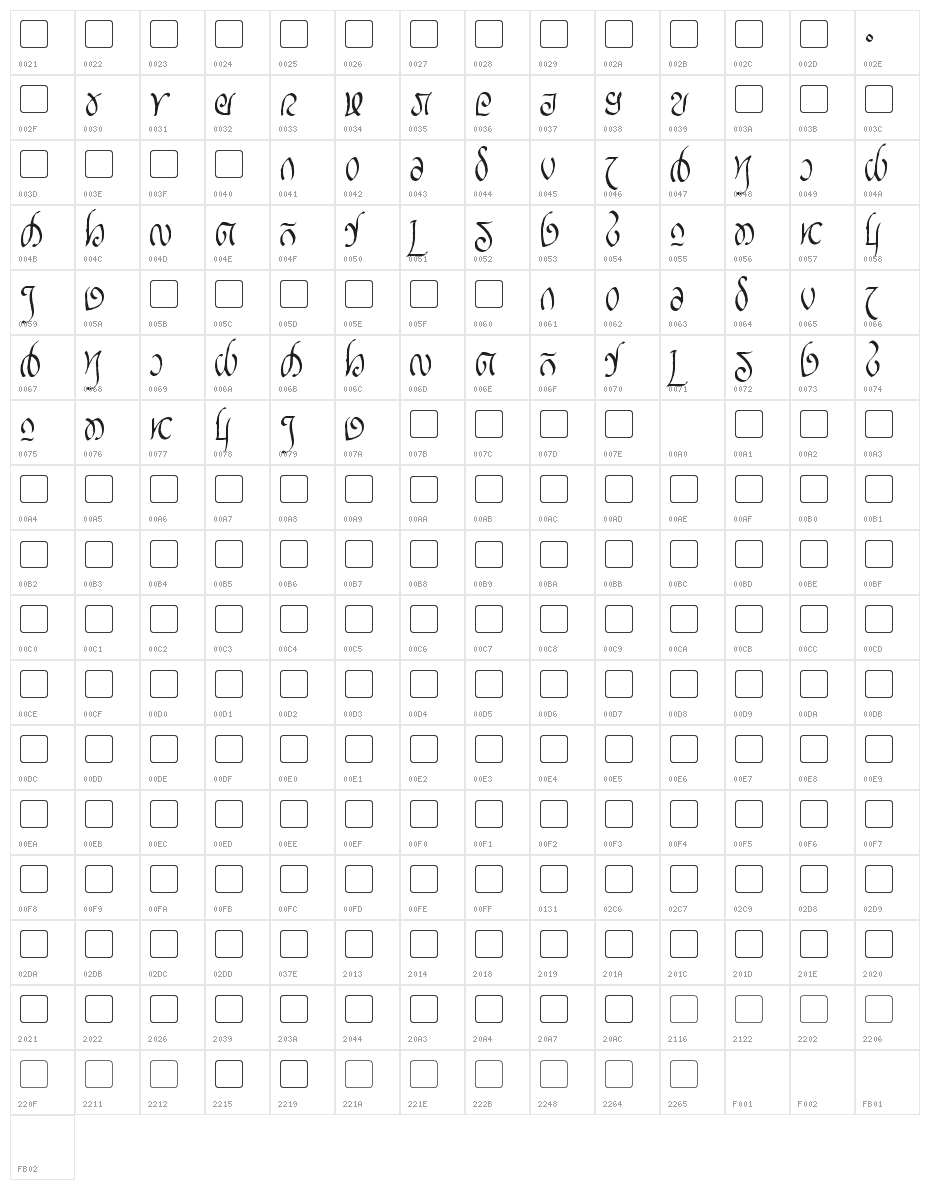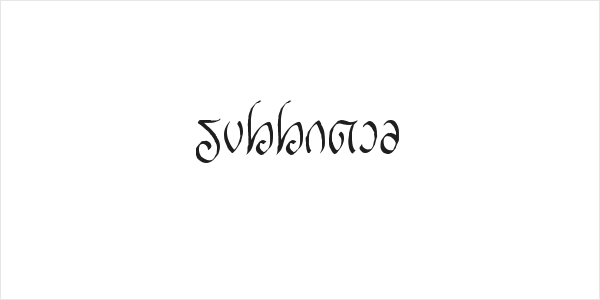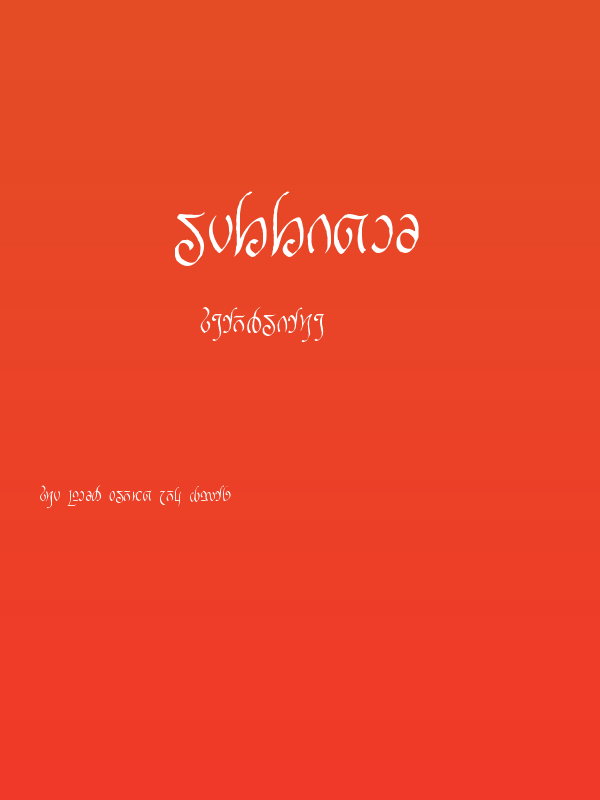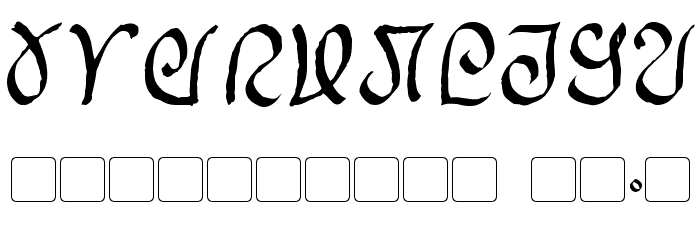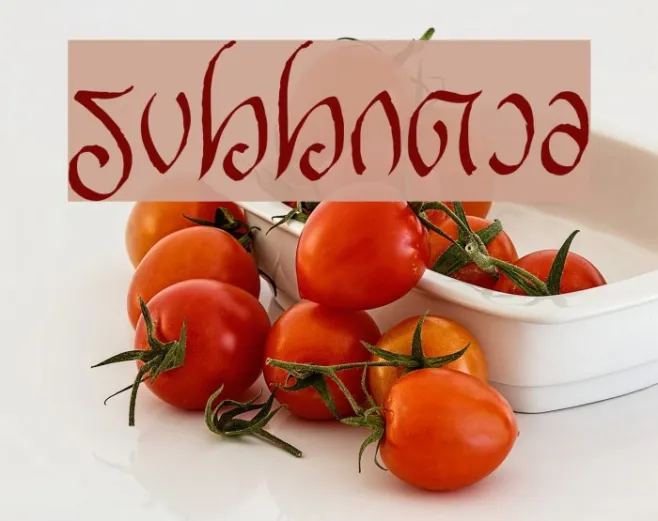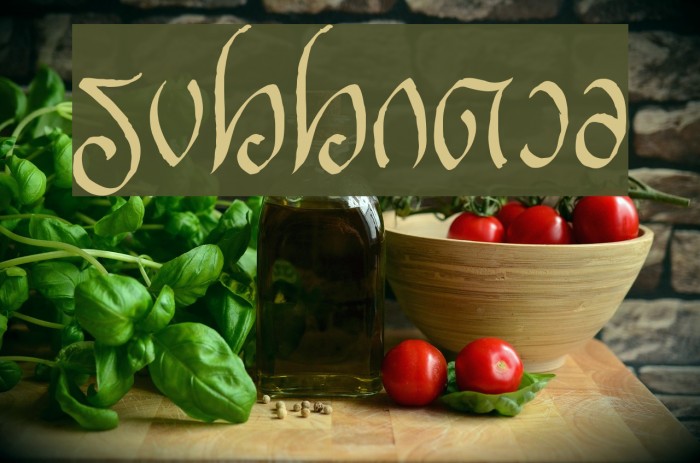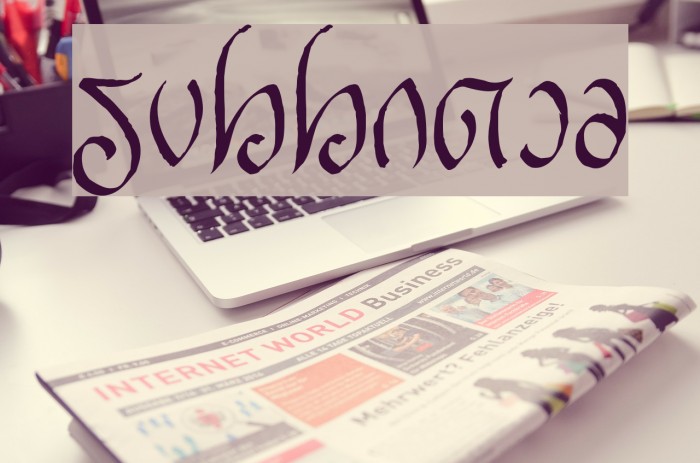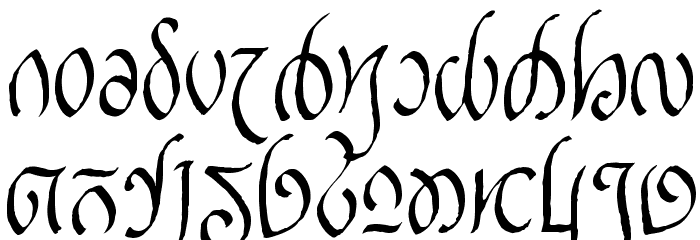
Rellanic Font
Rellanic Description
This font features an elegant, flowing script reminiscent of ancient calligraphy. The characters are intricately designed with a consistent stroke width, giving it a uniform appearance. The curves and loops are gracefully executed, providing a sense of movement and fluidity. This style is highly decorative, with each letter exhibiting unique flourishes that enhance its visual appeal. The font maintains a balance between readability and artistic expression, making it suitable for projects that require a touch of sophistication and historical charm.
| Proposed Projects | Ideal for fantasy-themed projects, historical documents, invitations, and decorative headings. |